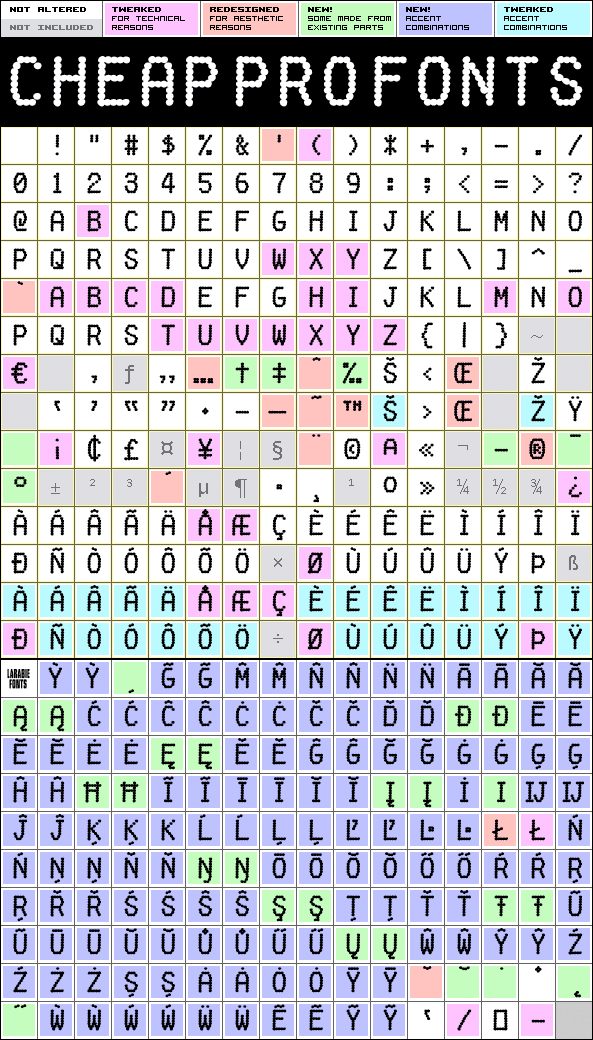
Fake Receipt Pro
Fake Receipt Pro by Ray Larabie
Ray Larabie
358 glyphs!
(201 in original)
NO kernpairs!
font is monospaced
I have mirrored the symmetrical characters for the lowercase - allowing for a slightly more varied look. In addition to correcting and expanding the character set, of course.
Ray Larabie says: «An all caps, distressed dot matrix font; the type often seen on cash register receipts.»
Fake Receipt Pro is a professionally reworked font that contains an extended character set for setting text in 65 languages requiring more than the basic A-Z!